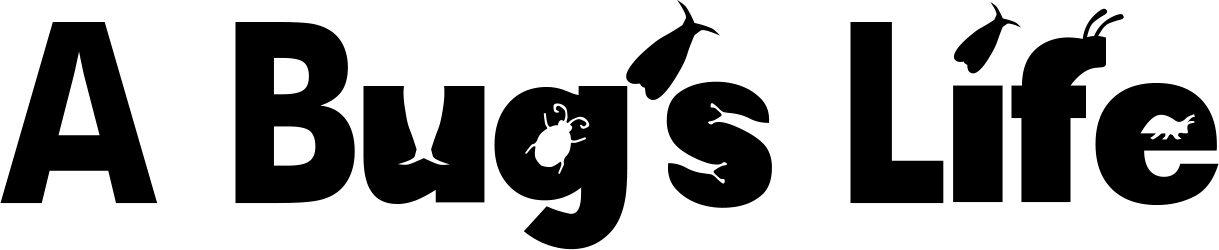
A Bug’s Life Font
A font, rich with bugs of many kinds. Even details like apostrophes in this font are designed as cute little bugs. It’s a fancy and almost cartoonish insect font, that can be used for decorative purposes, for example in birthday cards, flyers, kids’ books, etc.